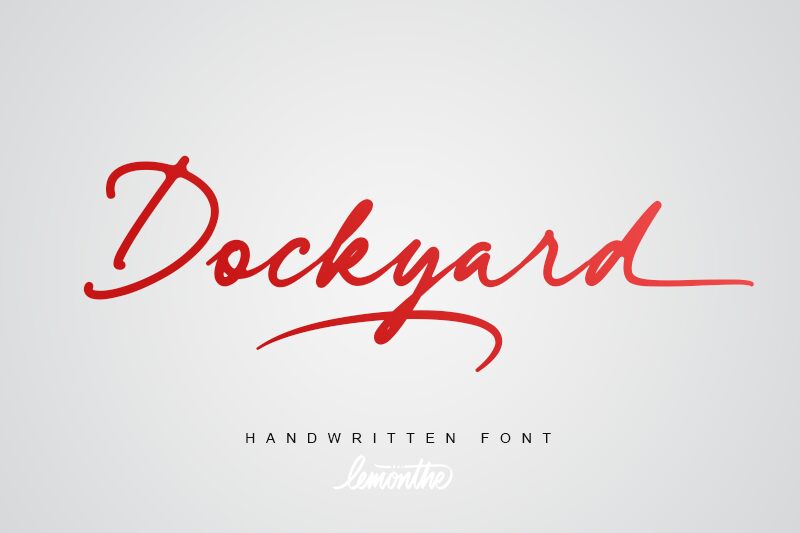
Dockyard font by Lemonthe is an exquisite handwritten typeface that blends personal charm with artistic flair. Its flowing script style creates the illusion of elegant, yet casual penmanship, making it perfect for adding a touch of sophistication to any design project. The smooth curves and distinctive character shapes imbue Dockyard with personality and warmth.
Ideal for logos, invitations, and social media graphics, this free font enhances creativity while ensuring readability. As a downloadable asset, Dockyard invites designers to elevate their work with its unique aesthetic appeal. Transform your projects with the natural grace of Dockyard font today.